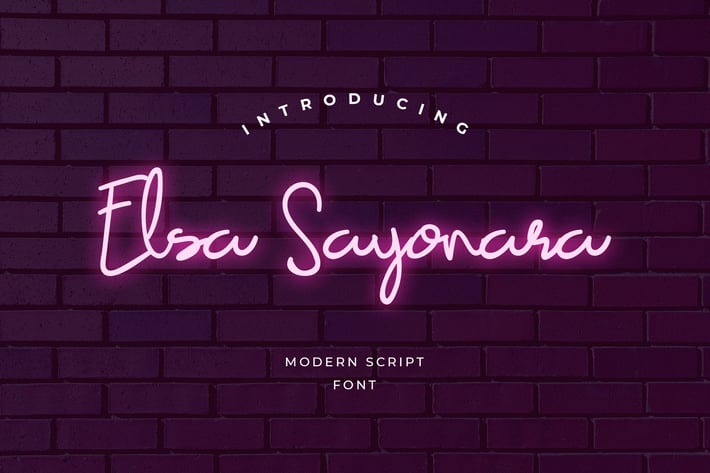
Elsa Sayonara Script Handwritten Monoline Font
Elsa Sayonara is perfect handwritten script for branding projects, logo, wedding designs, social media posts, advertisements, product packaging, product designs, label, photography, watermark, invitation, stationery and any projects that need handwriting taste.
This font has a really nice flow so you use it in a large text if you want to give them a touch of personality. It can be used on social media content, for branding or packaging.